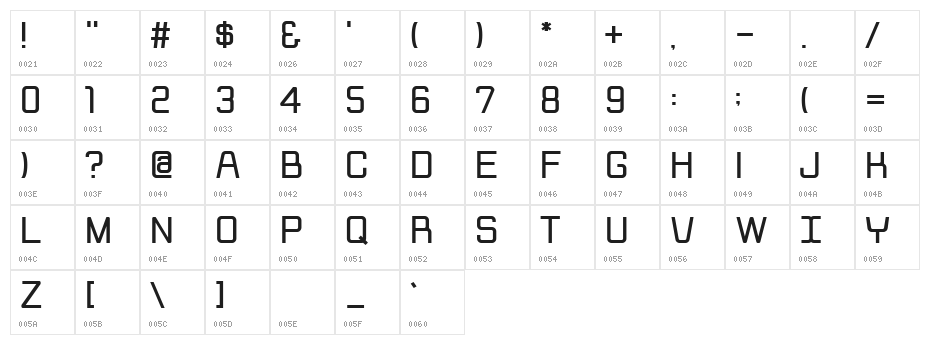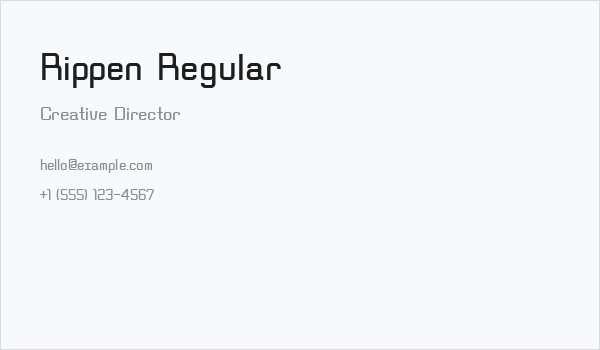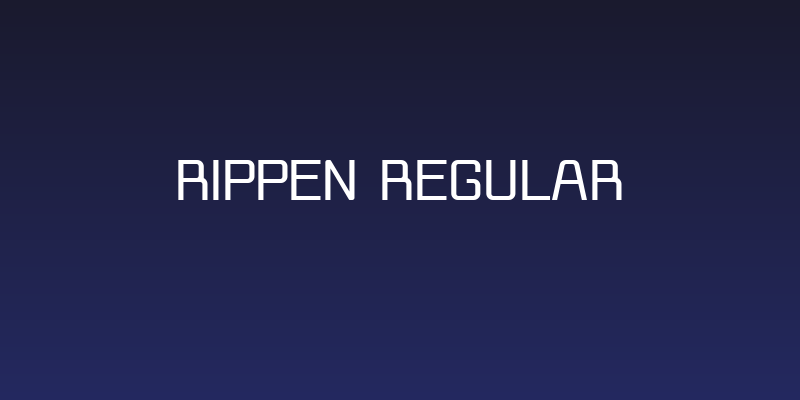
Rippen Regular Font
Rippen Regular Description
This font features a modern, geometric design with clean lines and a structured appearance. The uppercase letters are bold and angular, while the lowercase letters maintain a consistent style with rounded edges. The numerals are distinct and easy to read, complementing the overall aesthetic. Special characters are well-integrated, maintaining the font's cohesive look. The uniformity in stroke width gives it a sleek, contemporary feel, making it suitable for various design applications.
| Use Case | Headlines, Logos, Digital interfaces |
| Proposed Projects | Ideal for branding, digital interfaces, signage, and editorial design where a modern and clean look is desired. |